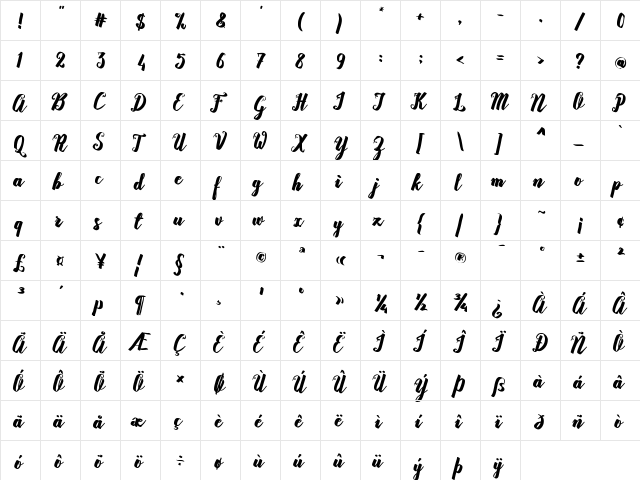
Rasterize Script Bold Font Preview
| Foundry | Darwinoo |
| Designer | Darwinoo |
Design Context for Rasterize Script Typeface
Rasterize Script flows with the natural rhythm of handwritten lettering, making it ideal for designs that call for warmth and personal expression. The heavy weight commands attention and anchors typographic hierarchies.
Font Pairing: Combine Rasterize Script with a simple geometric sans for maximum contrast — the tension between flowing curves and clean structure is a classic typographic pairing.
Pro Tip: Pair Rasterize Script with a clean sans-serif for supporting text. The contrast between fluid script and geometric structure creates an elegant typographic hierarchy.